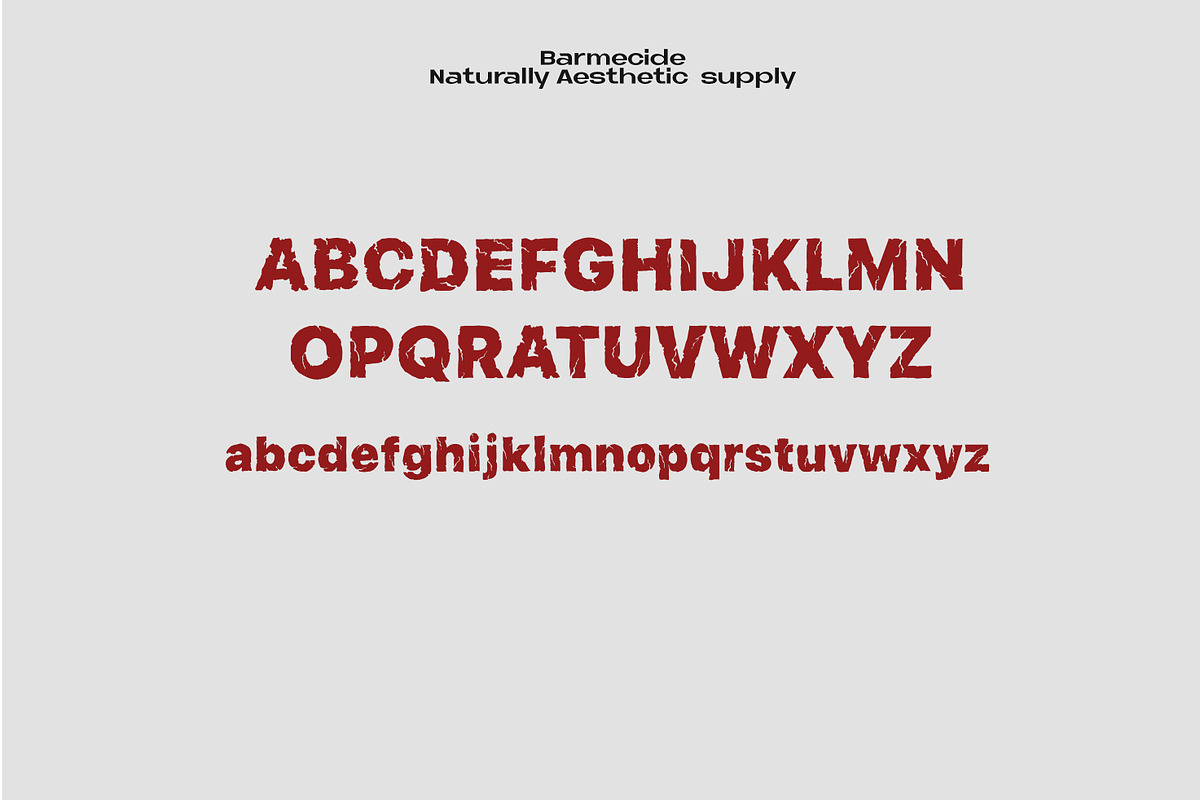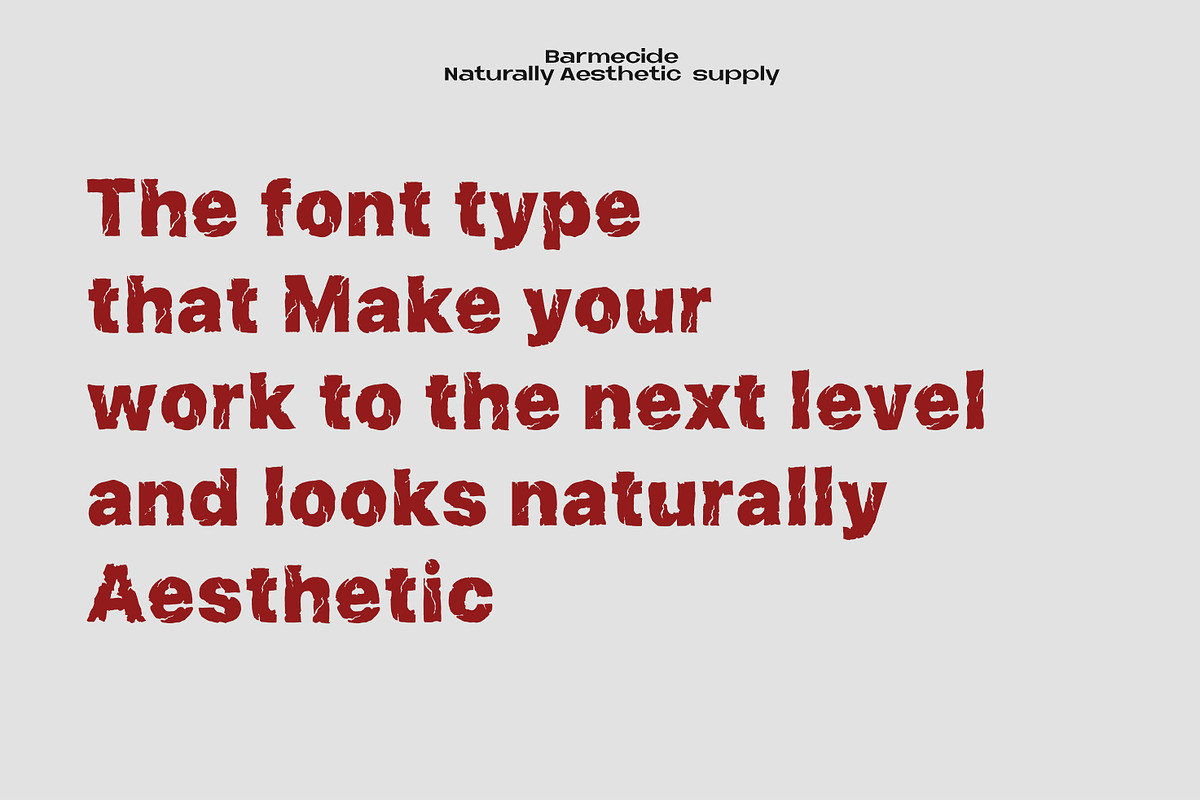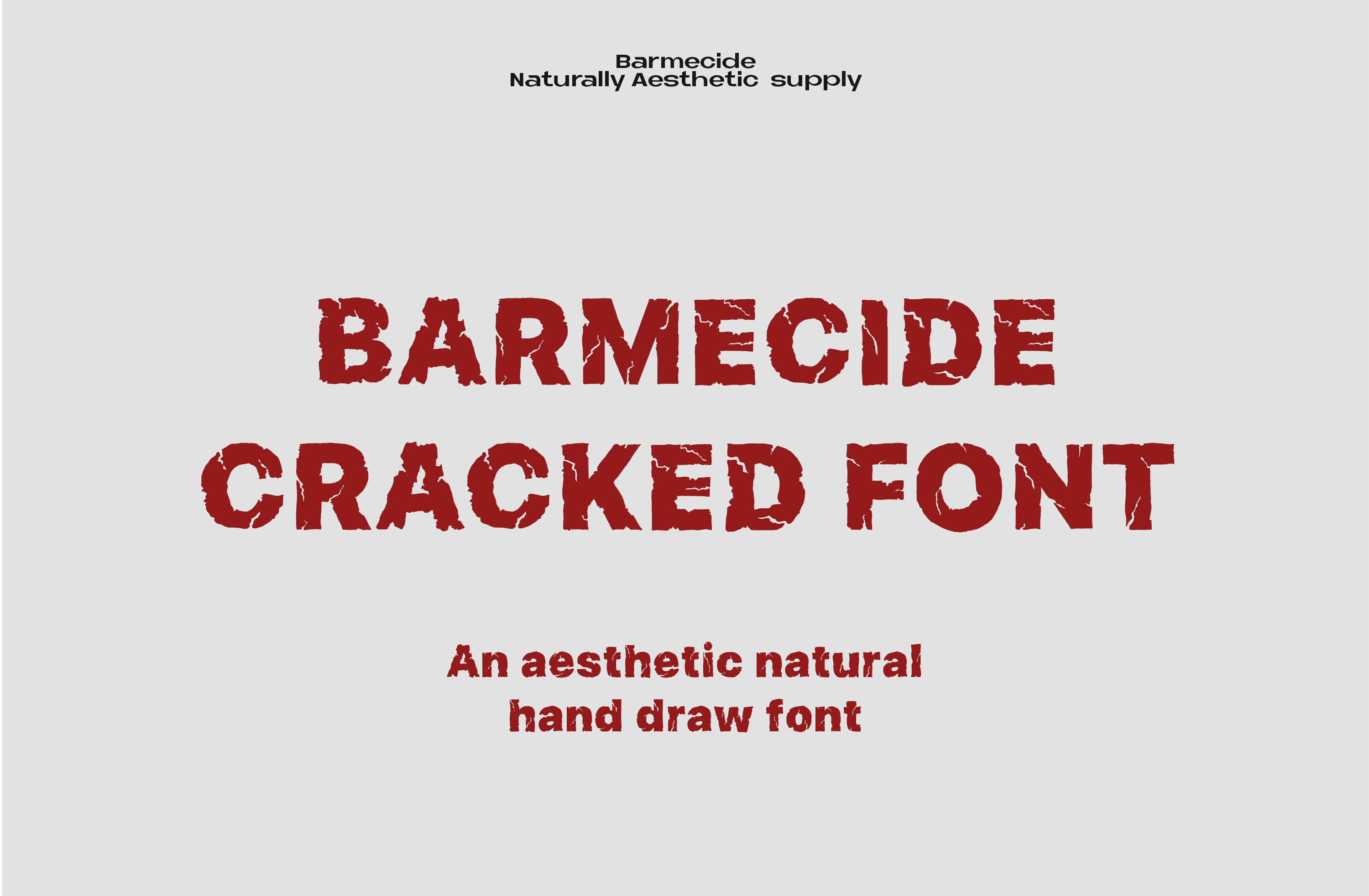
Cracked font
Presenting a genuinely exclusive font family, designed to elevate your creative work from concept to masterpiece. The high-contrast letterforms and carefully considered negative space create an inherently aesthetic visual rhythm. This is not a mass-produced digital imitation—it is a digital-native artisan creation, featuring extensive ligatures, stylistic alternates, and contextual kerning. Ideal for fine packaging, high-end branding, and editorial layouts where the typography itself must speak of unparalleled craftsmanship and intentional design.